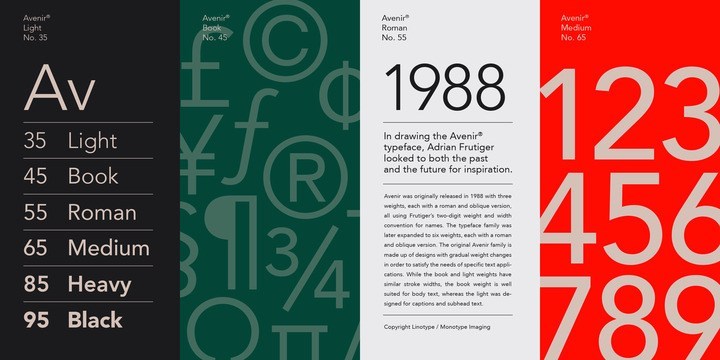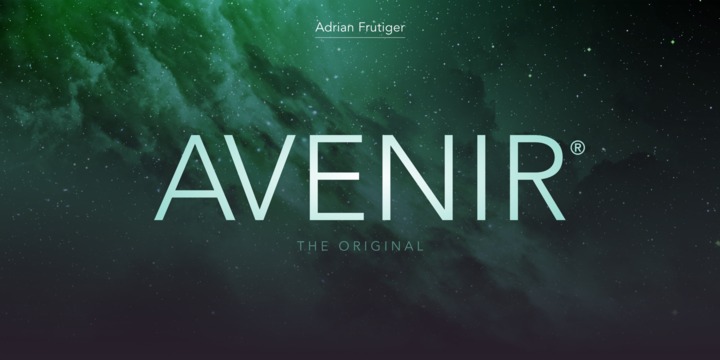
Avenir 35 Light Font
Avenir 35 Light Font is famous for its Roman typeface. This typeface is available for free download in zip file format and also known as canva font. It’s a geometric sans-serif typeface and is principally proper to headlines, particularly if the region is tight. Now it’s your turn to astonish your customers and combatants inside the intervening time.
You may create top-notch designs with this great font. It is similar to campton font a modern-day tackle a conventional face—it’s the impact of a task whose goal changed into to take a fantastically designed sans and replace it. Download The majority of the designers were the use of it for their very non-public structures. And some others are taking it as an idea for making new typefaces.
The update becomes as fast as finished in a way just so its technical elements for the fashionableness, issuing us with a genuinely excellent sans family.